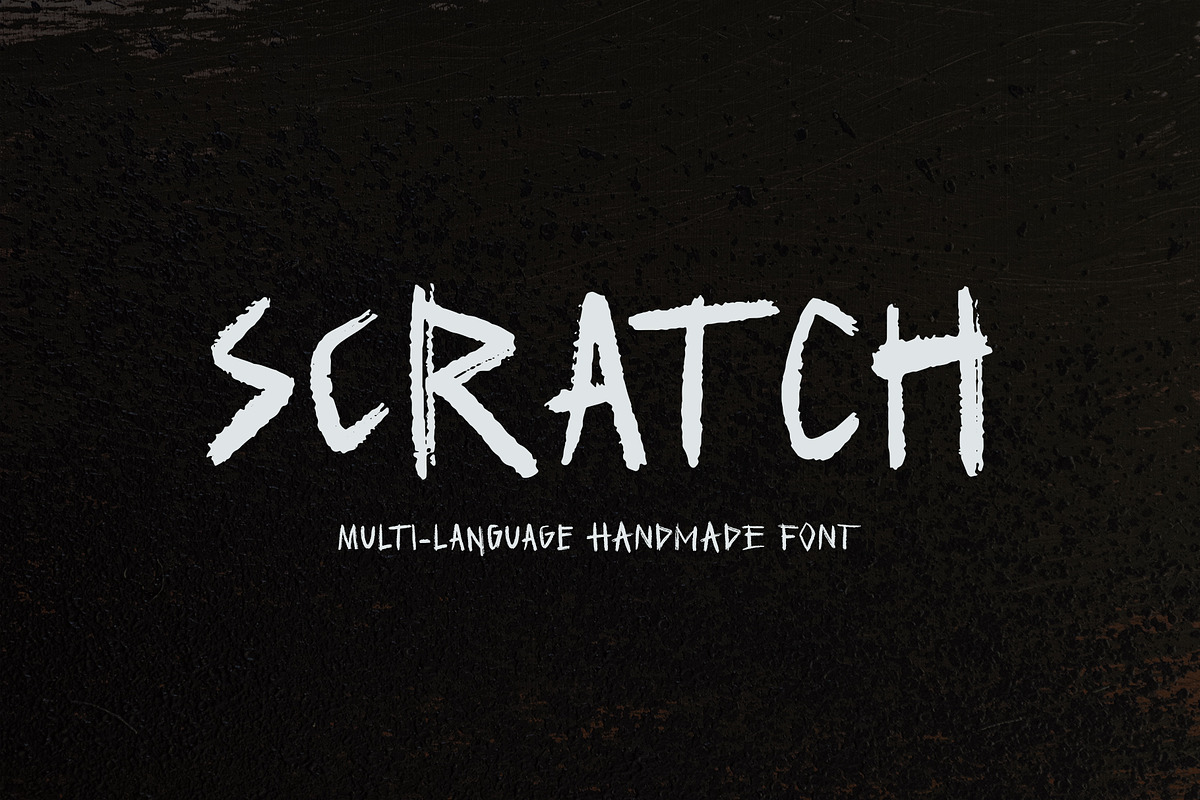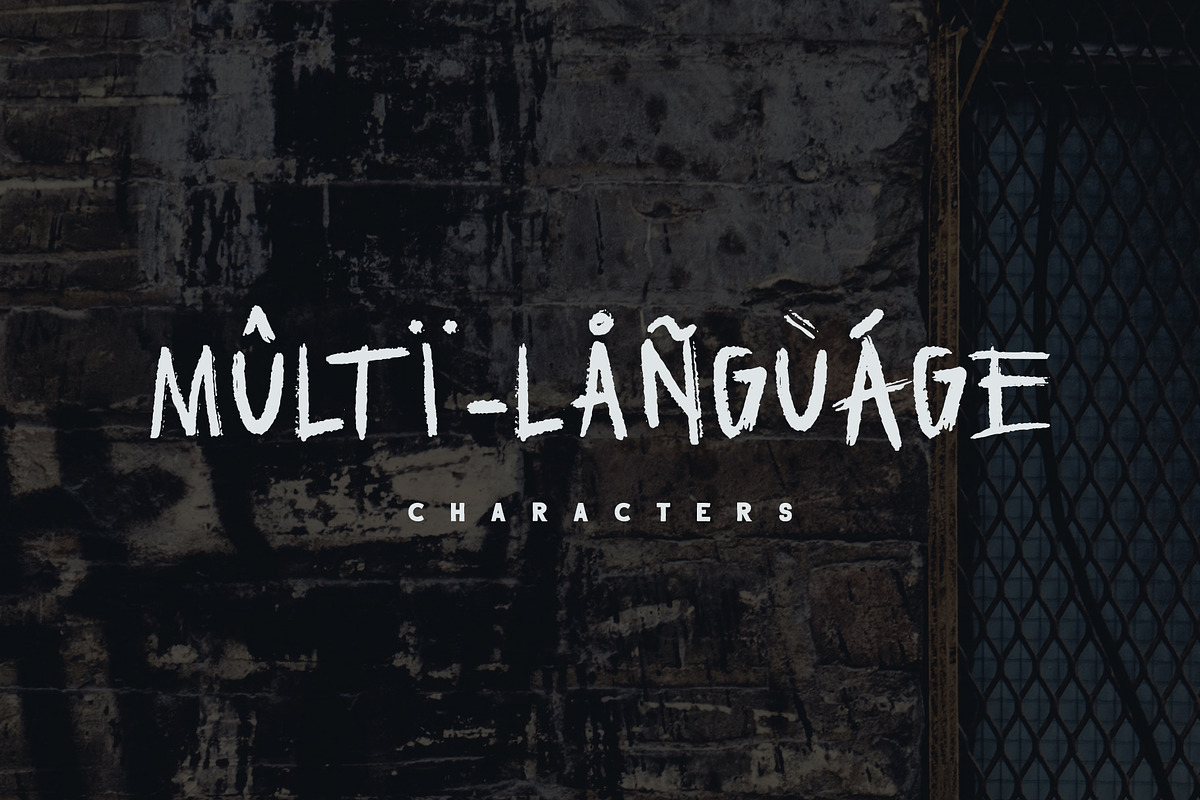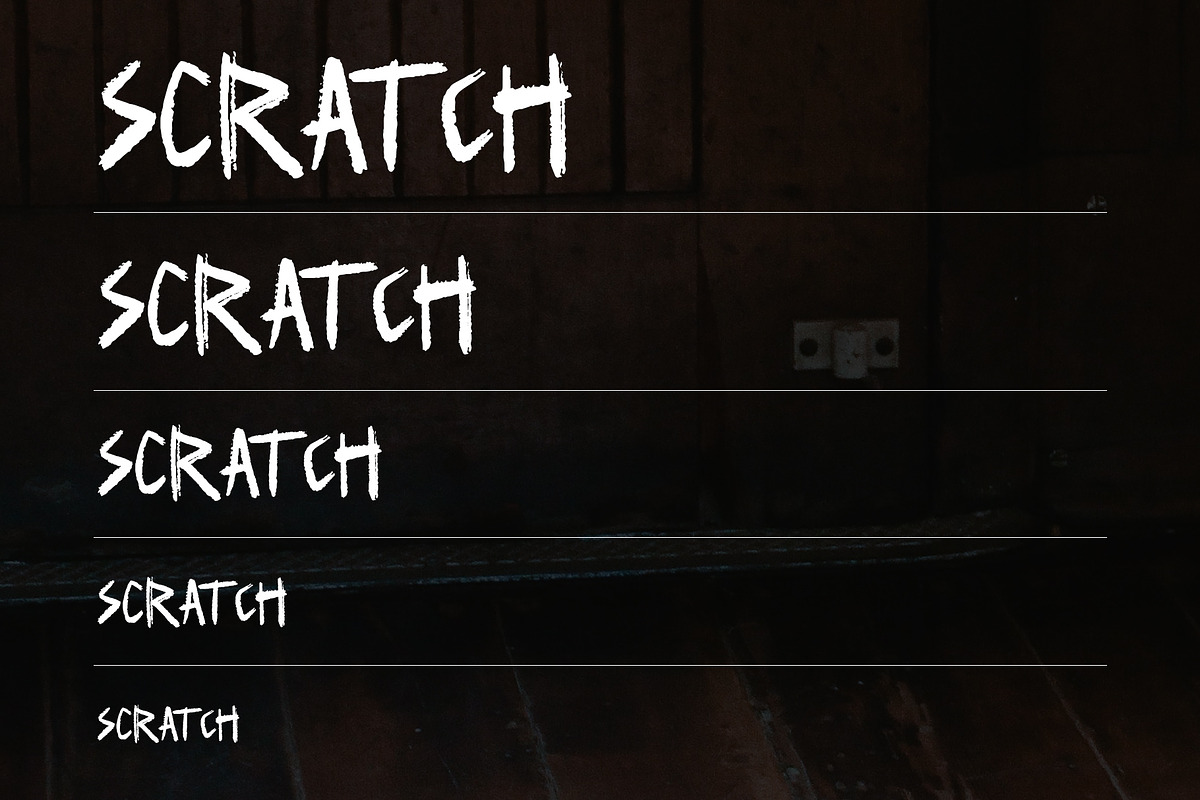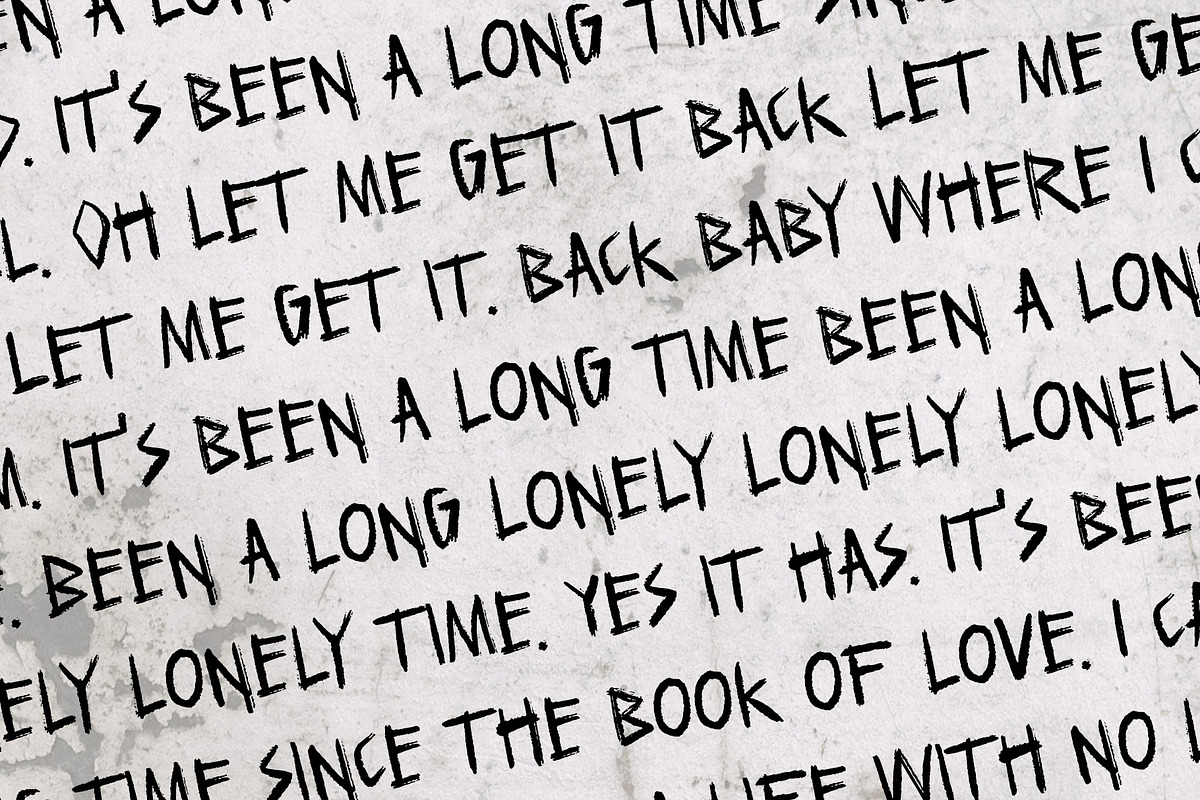
Scratch
SCRATCH is an edgy, spooky, awesome handmade font with every letter, number, and punctuation, and glyph you can imagine! Includes multi-language characters!